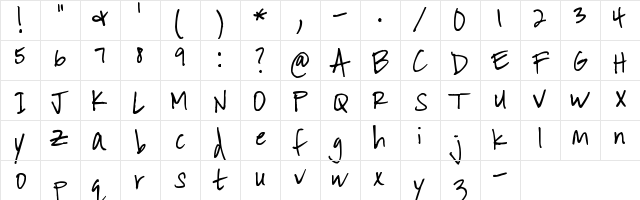
Pea HeidiQ Regular
Design Context for Pea HeidiQ Typeface
Pea HeidiQ takes a measured approach to typography — its balanced proportions and neutral character make it a reliable workhorse for both digital and print work.